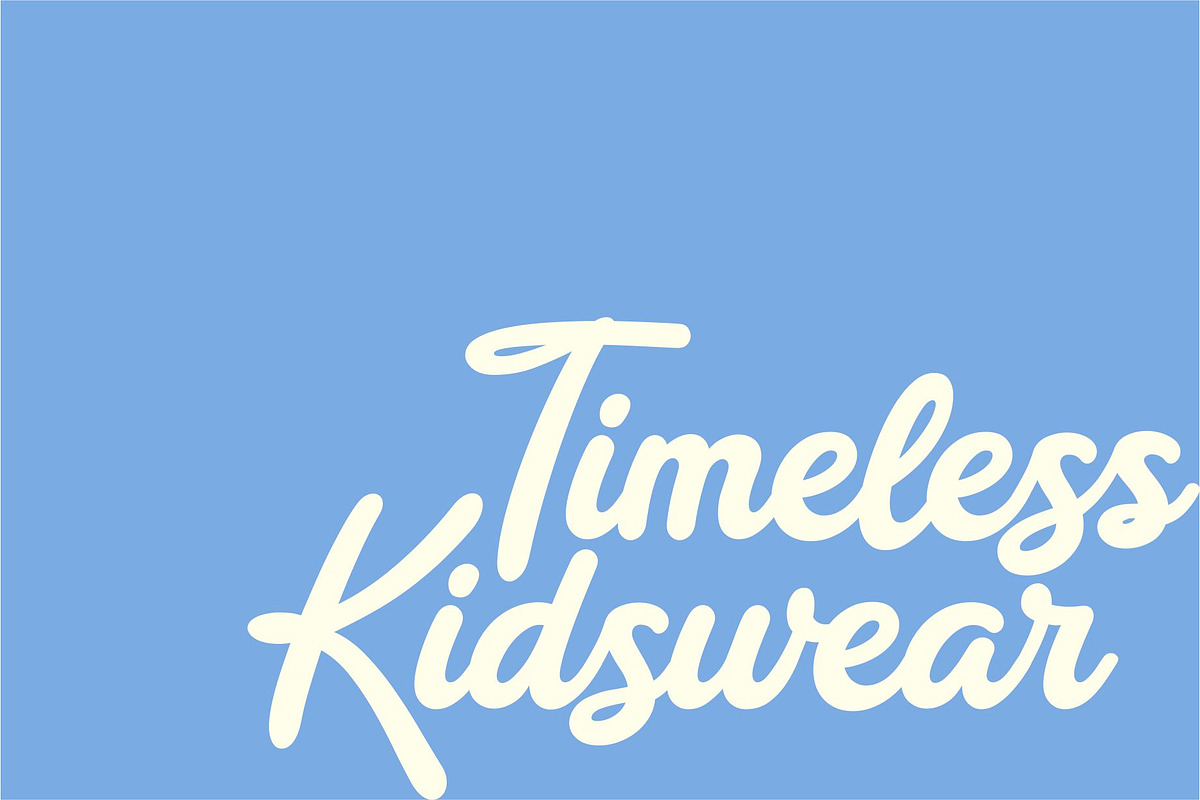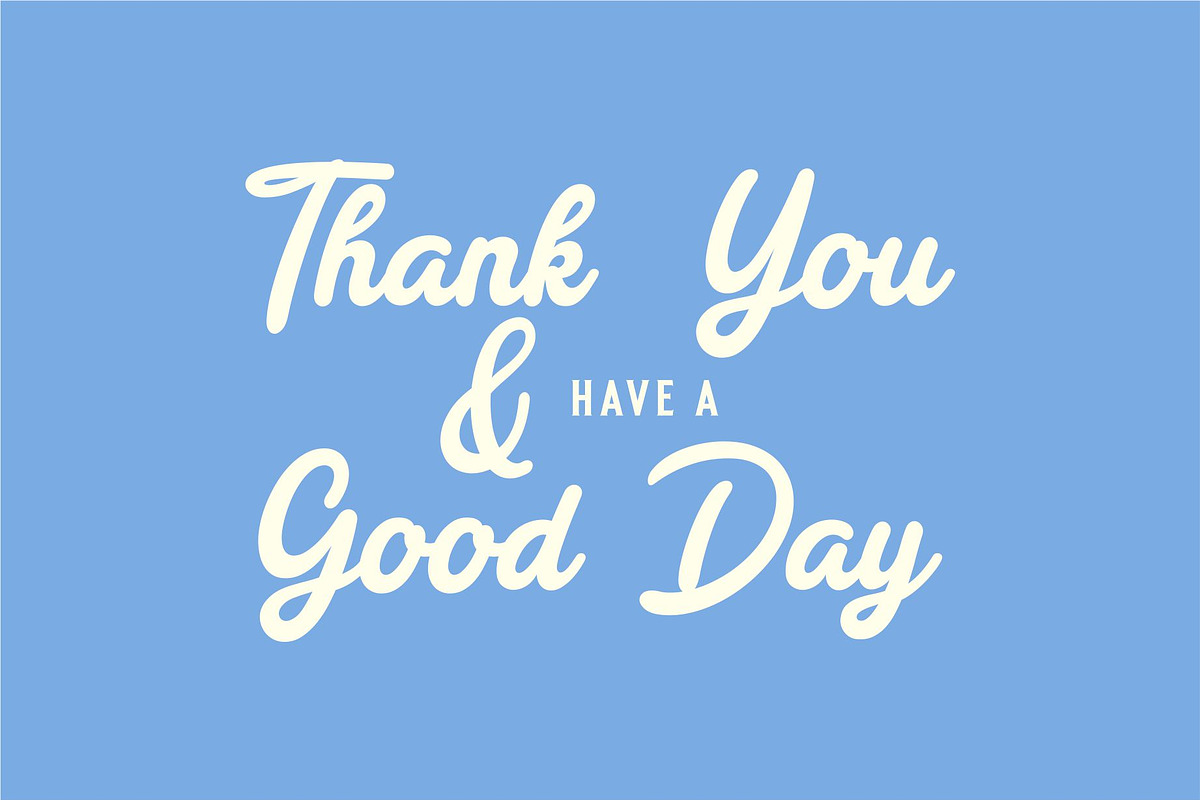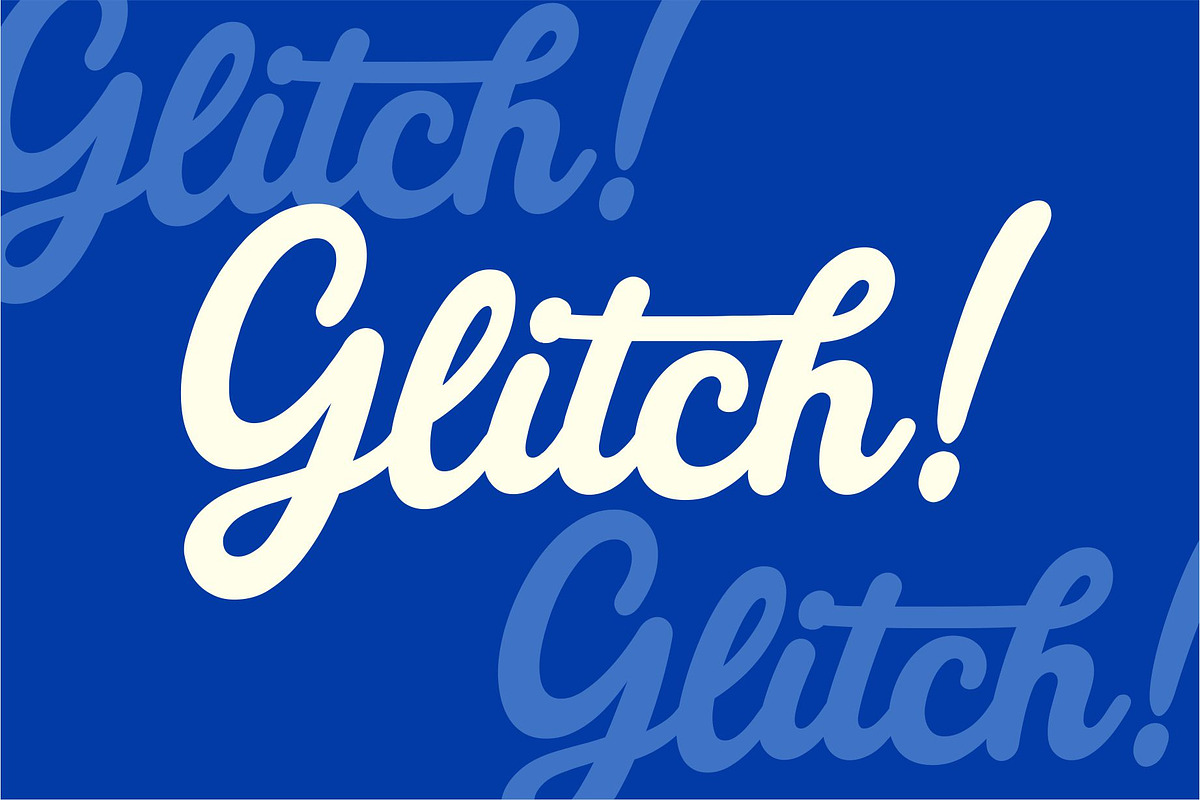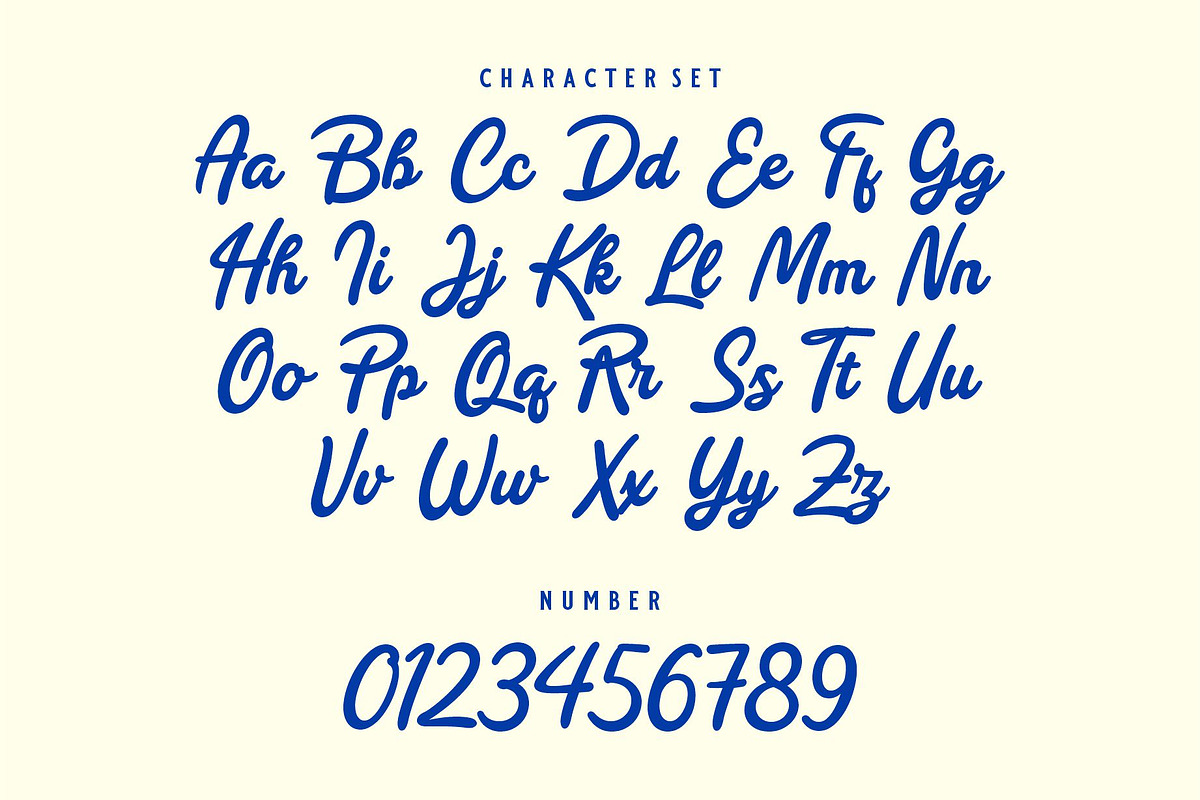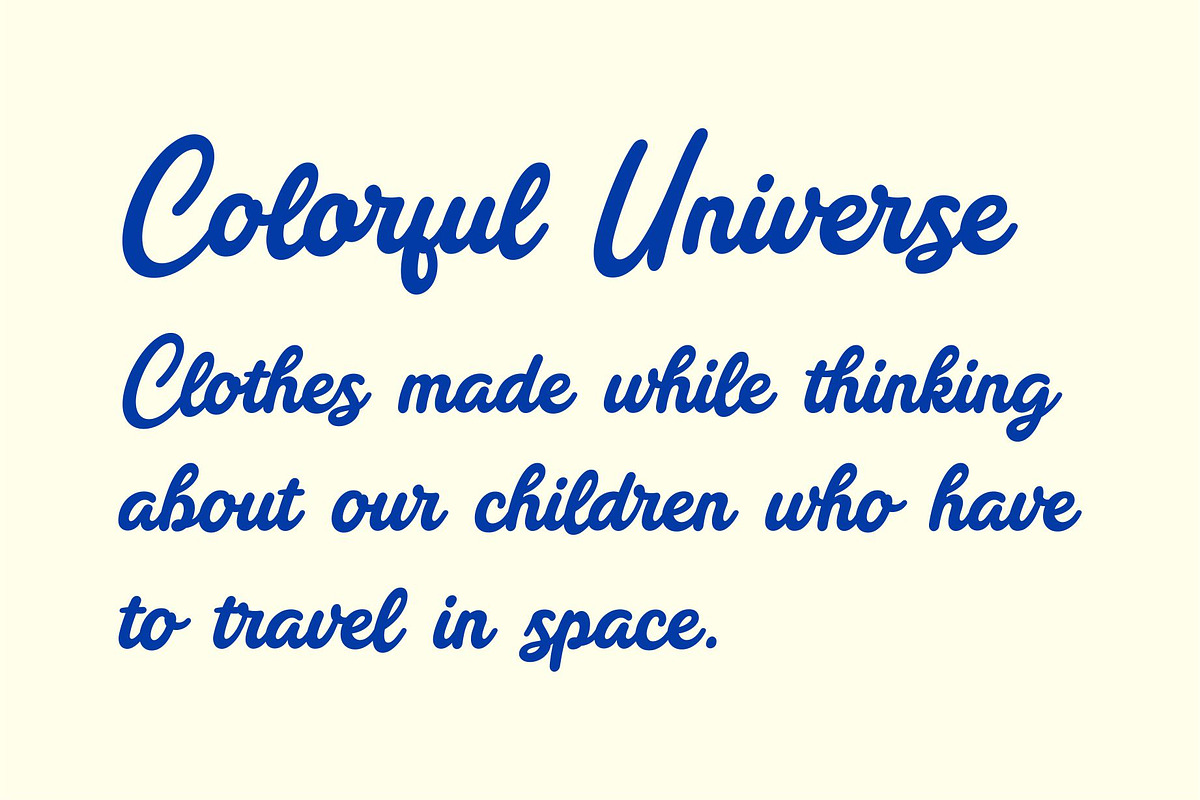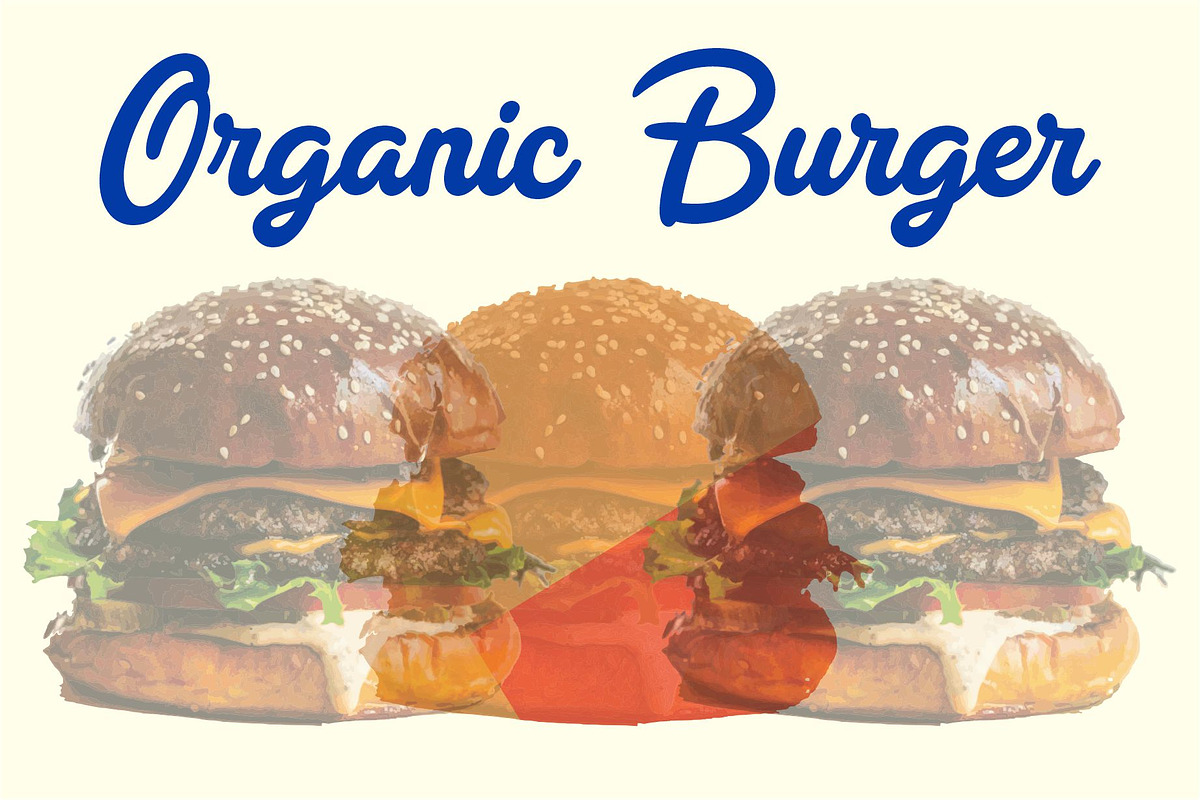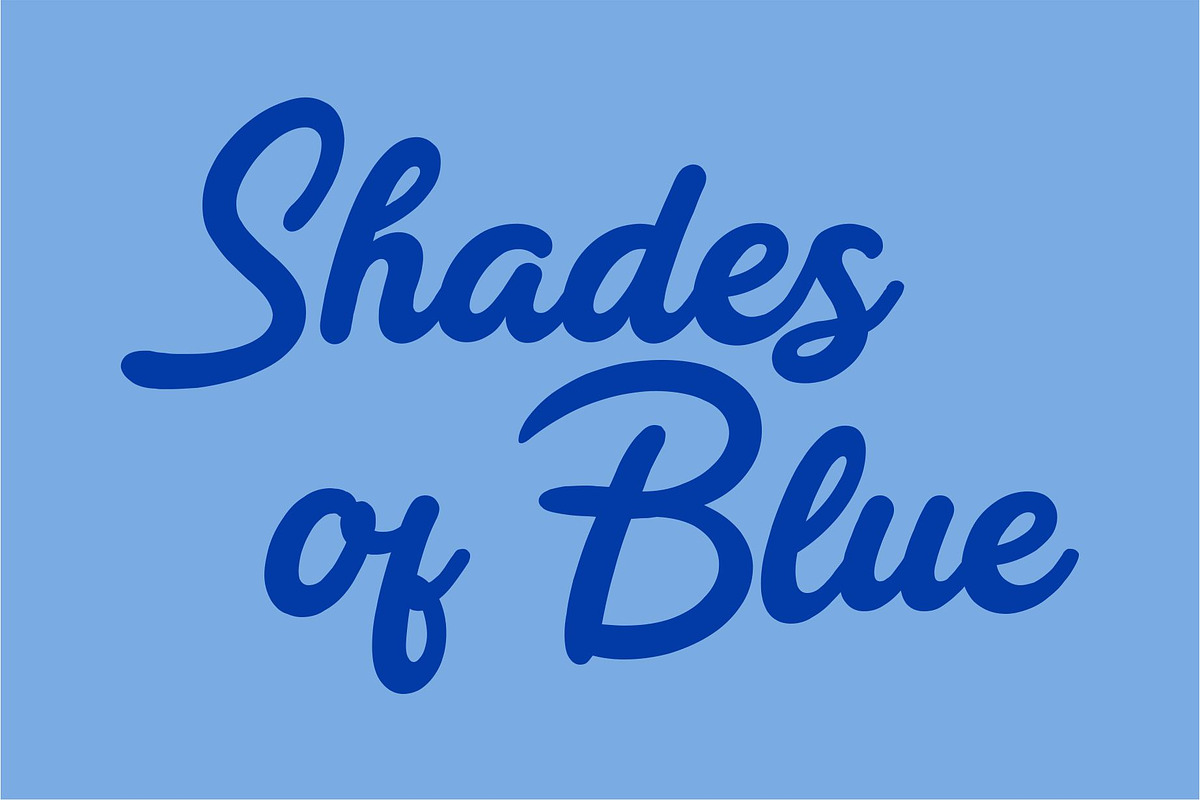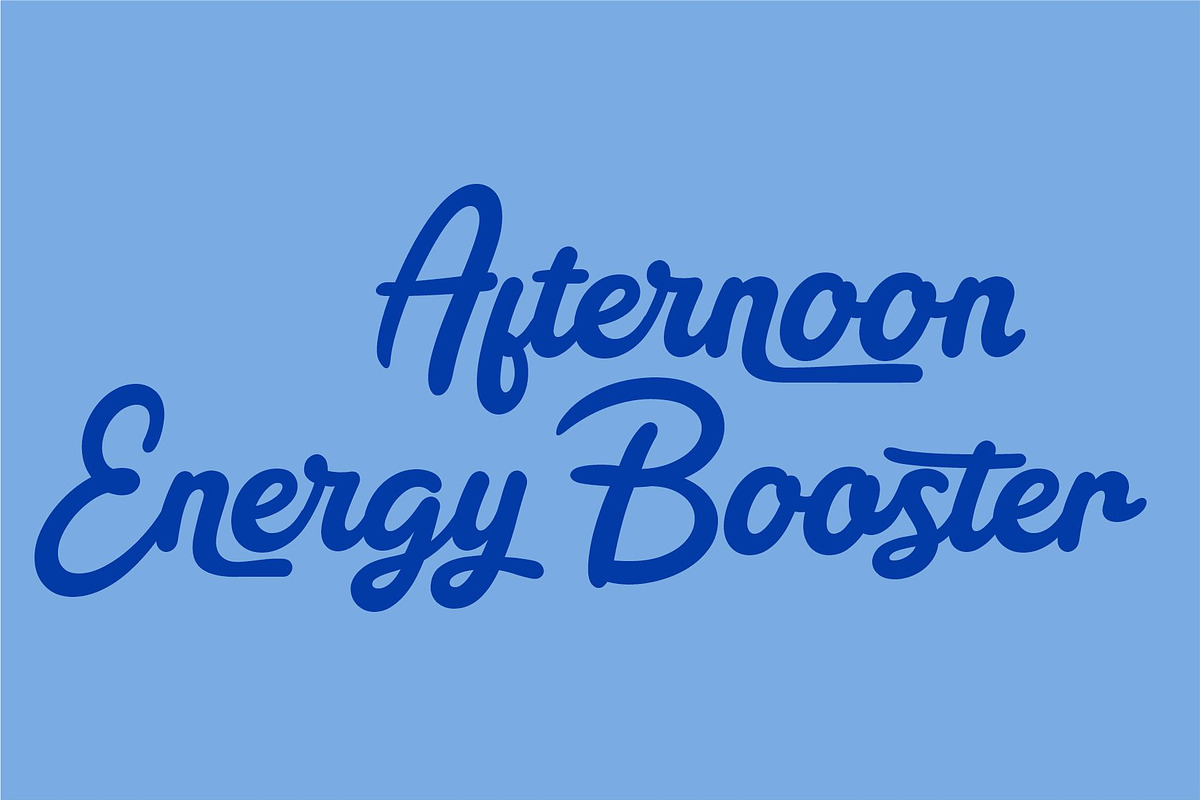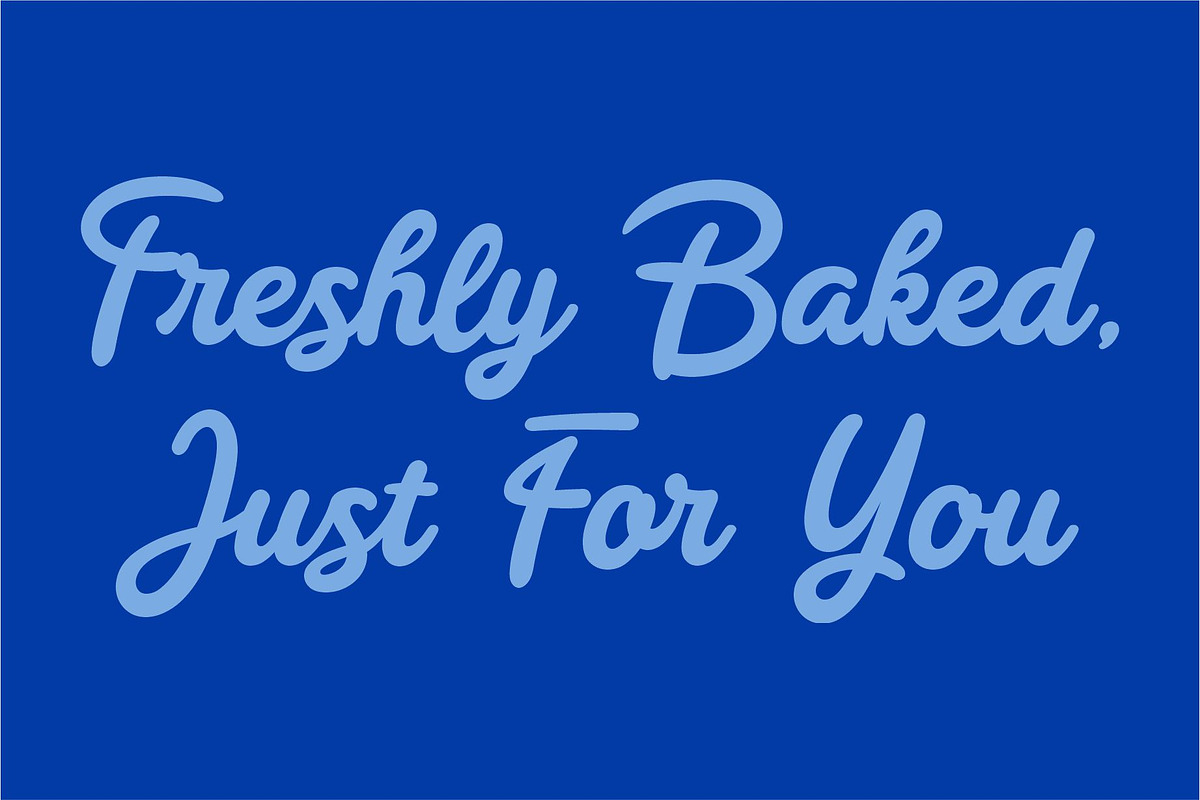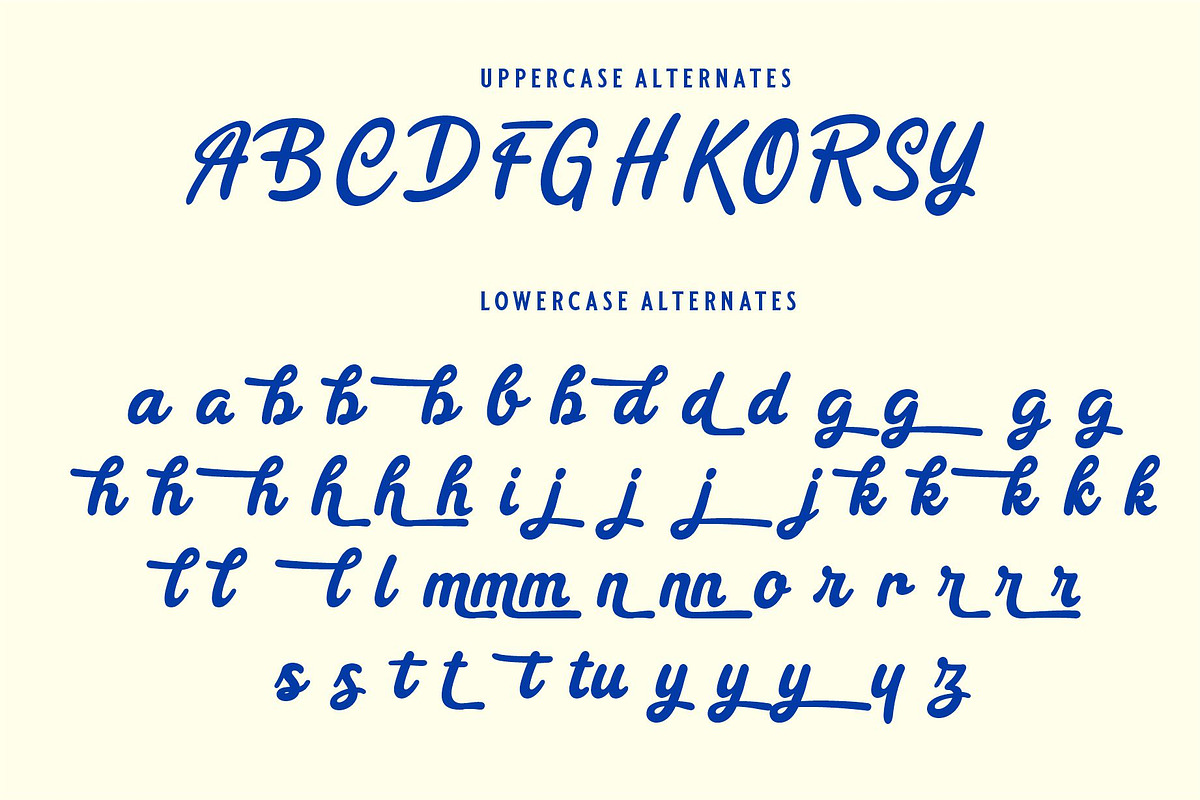
REYAL BEACH | BOLD SCRIPT
Reyal Beach is a bold and expressive script font designed to bring energy, style, and personality to your creative projects. With its smooth flowing strokes and strong handwritten character.
This font features thick curves, stylish swashes, and natural connections that make every word feel dynamic and lively. Reyal Beach works beautifully for branding, logos, packaging, posters, social media graphics, and any design that needs a bold script with a confident presence.